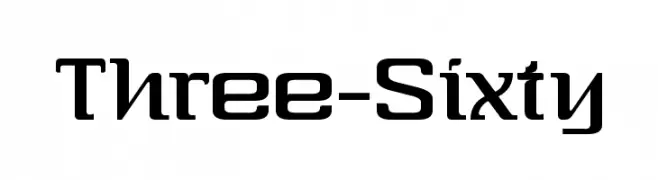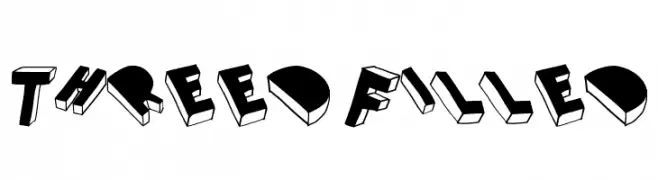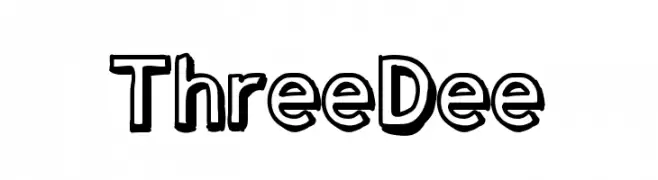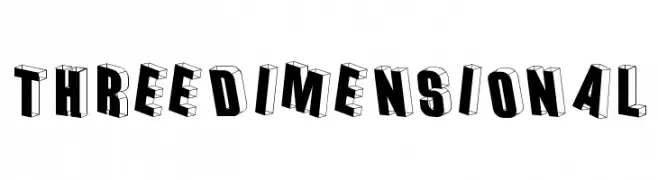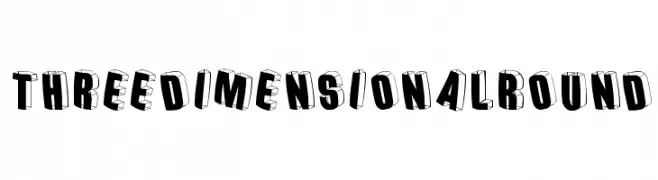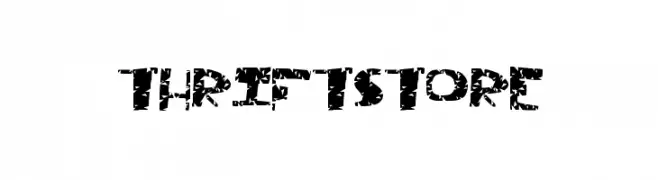
A bold, shadowed font with a three-dimensional, geometric style.
A playful, tentacle-inspired font with bold, dynamic characters.
A bold, geometric font with a modern and futuristic style.
A bold, condensed font with a modern and dynamic style.
A bold, three-dimensional font with a playful and dynamic style.
A bold, three-dimensional font with a filled, shadowed design for impactful visuals.
A bold, three-dimensional font with a playful and dynamic style.
A bold, three-dimensional font with a modern, industrial look.
A bold, three-dimensional font with a striking shadow effect.
A bold, three-dimensional font with a rounded, block-like structure.